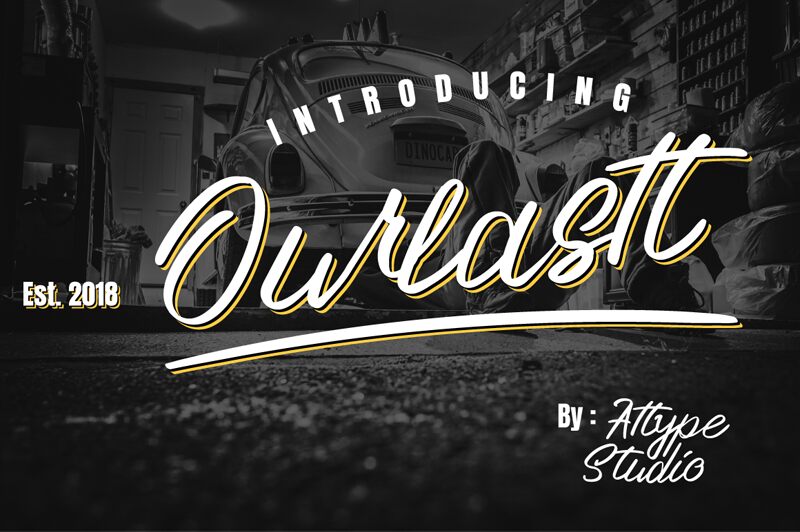
Ourlastt is a captivating handwritten font that exudes a sense of effortless elegance. Designed by the talented team at Attypestudio, this font boasts a fluid, dynamic script that seamlessly blends the organic flow of handwritten text with a refined, modern aesthetic. The distinctive, sweeping strokes and subtle variations in line weight create a visually engaging and versatile typeface that can elevate a wide range of design projects, from editorial layouts to branding materials and beyond.
Ourlastt's innate charm and expressive quality make it an excellent choice for designers seeking to infuse their creations with a touch of artisanal charm and personal flair.